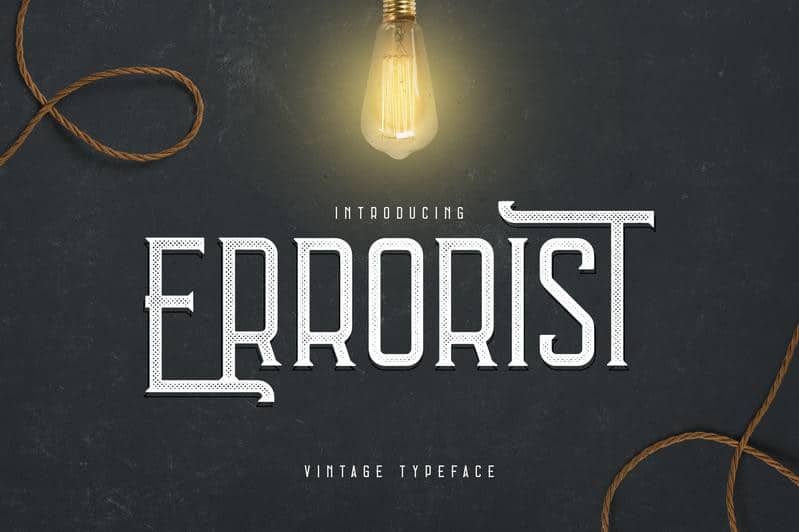
Errorist – Vintage Typeface
Errorist is long, vintage typeface with 3 styles, tons of alternative glyphs and multilingual support.
It’s a very versatile font that works great in large and small sizes.
Errorist is perfect for branding projects, home-ware designs, product packaging, magazine headers – or simply as a stylish text overlay to any background image.